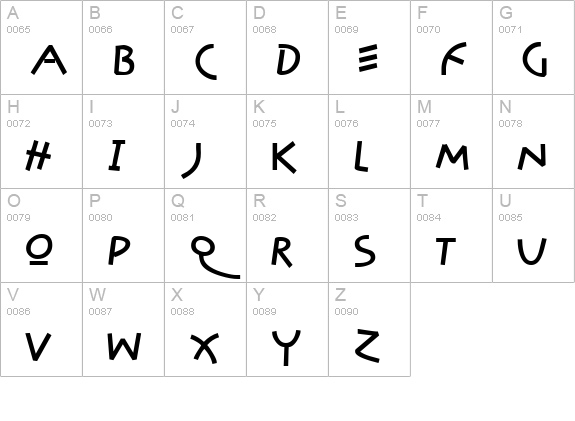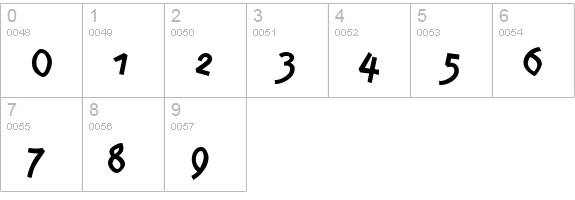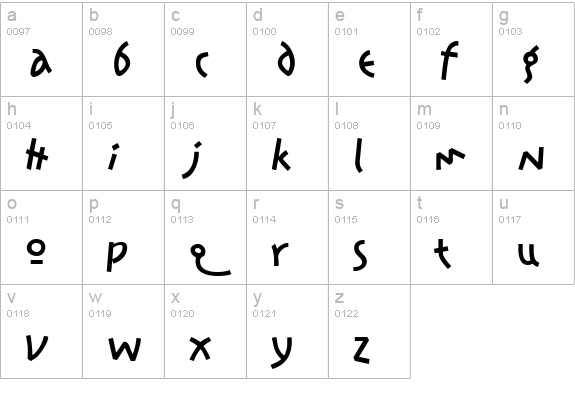
Amazon Font Details
Introducing the exquisite Amazon font, a versatile and modern typeface that will elevate your design projects to new heights. With its clean lines and elegant curves, Amazon font is perfect for a wide range of applications, from branding to packaging to web design. This font exudes sophistication and style, making it a must-have for any designer looking to make a statement. The best part? Amazon font is available for free download at FontsMarket.com. That's right, you can get your hands on this stunning font without spending a dime. Don't miss out on this incredible opportunity to enhance your creative work with the beauty and charm of Amazon font. Download it today and start creating something truly special.